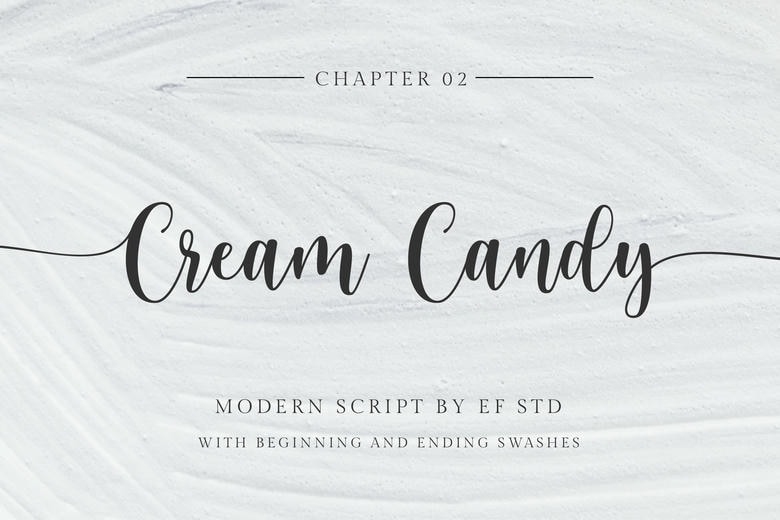
Cream Candy Font
Cream Candy is a gorgeous contemporary script typeface featuring gorgeous swashes. Its 22 ligatures will bring a higher level of beauty in any design work.
Cream Candy Handwritten Script Font